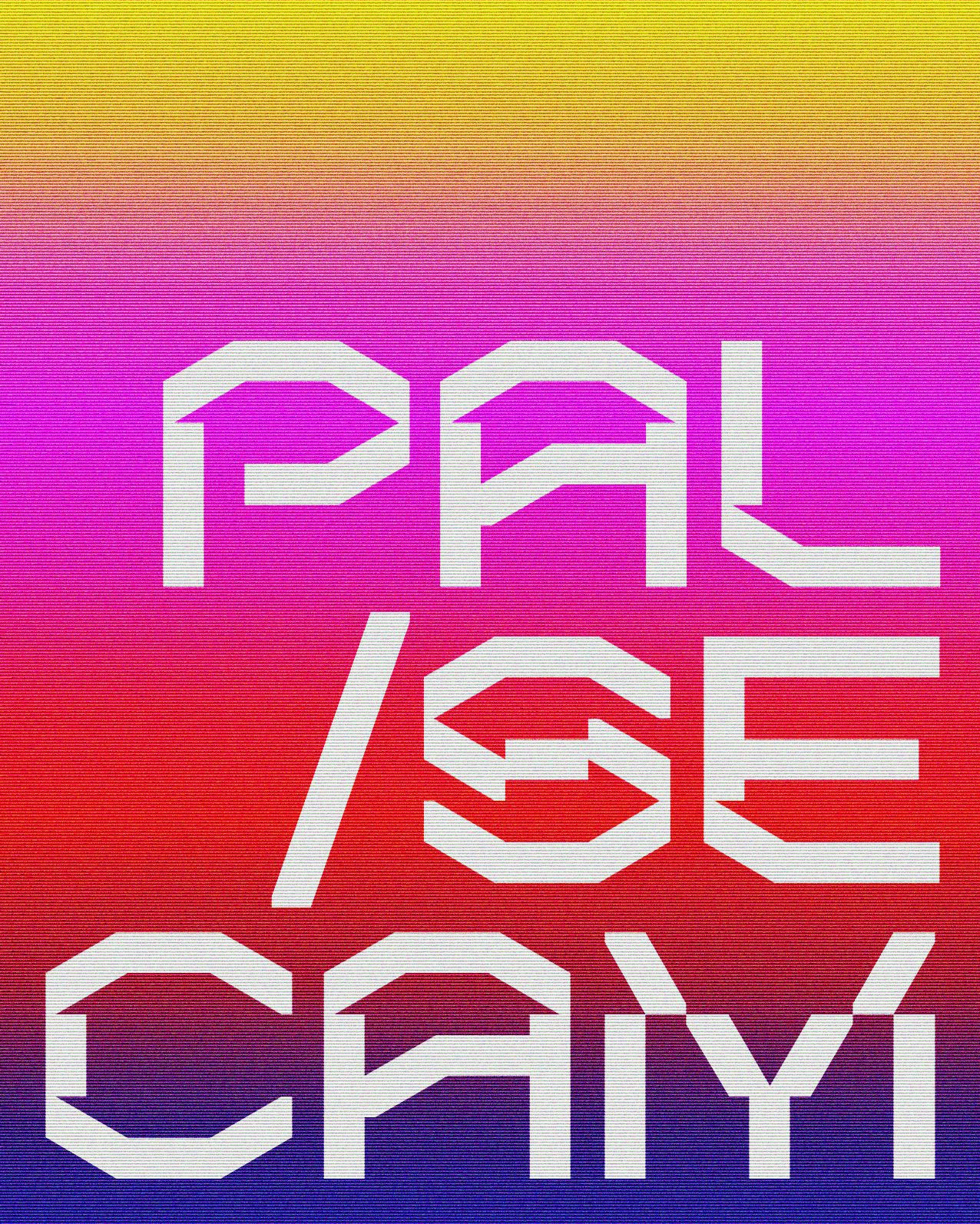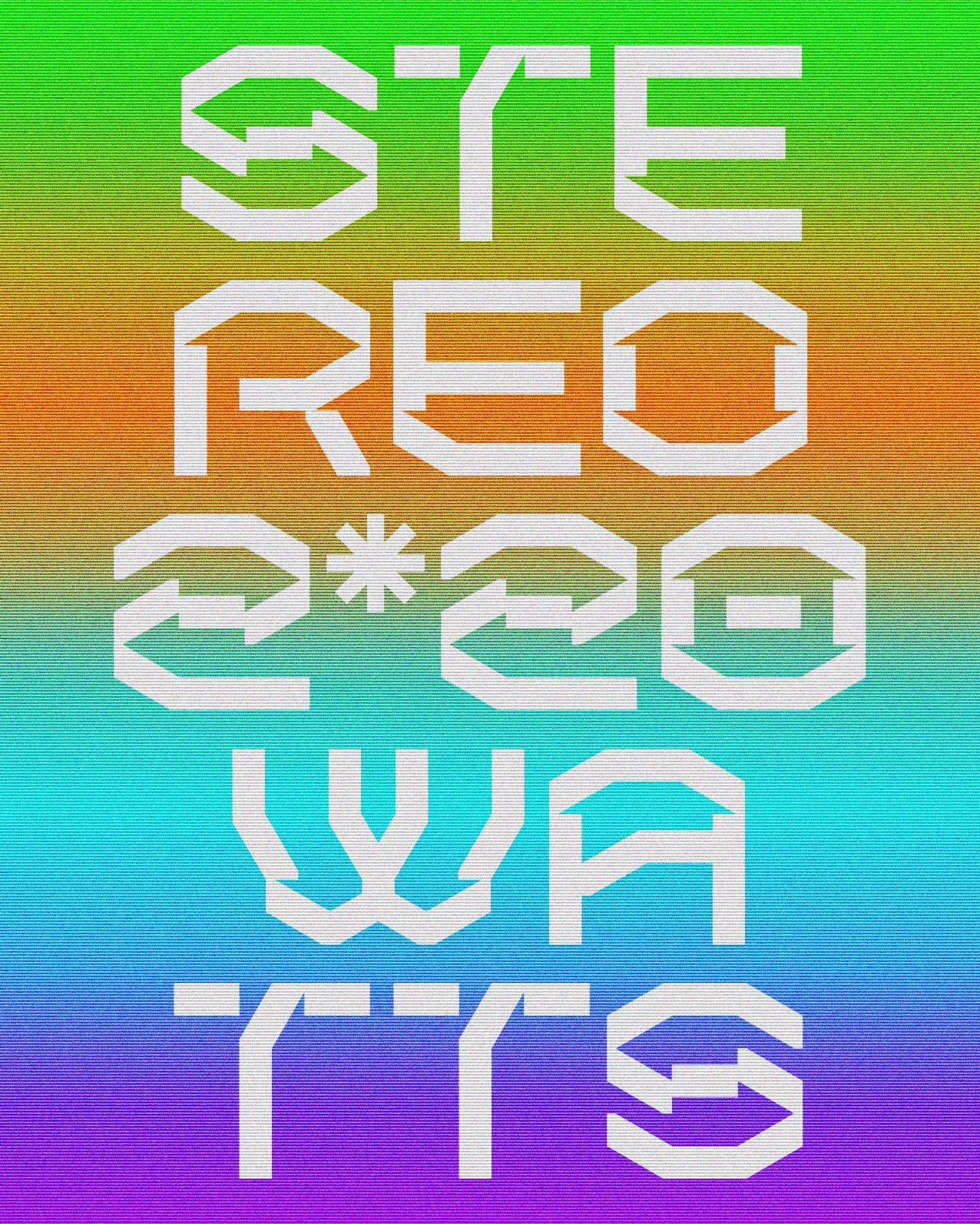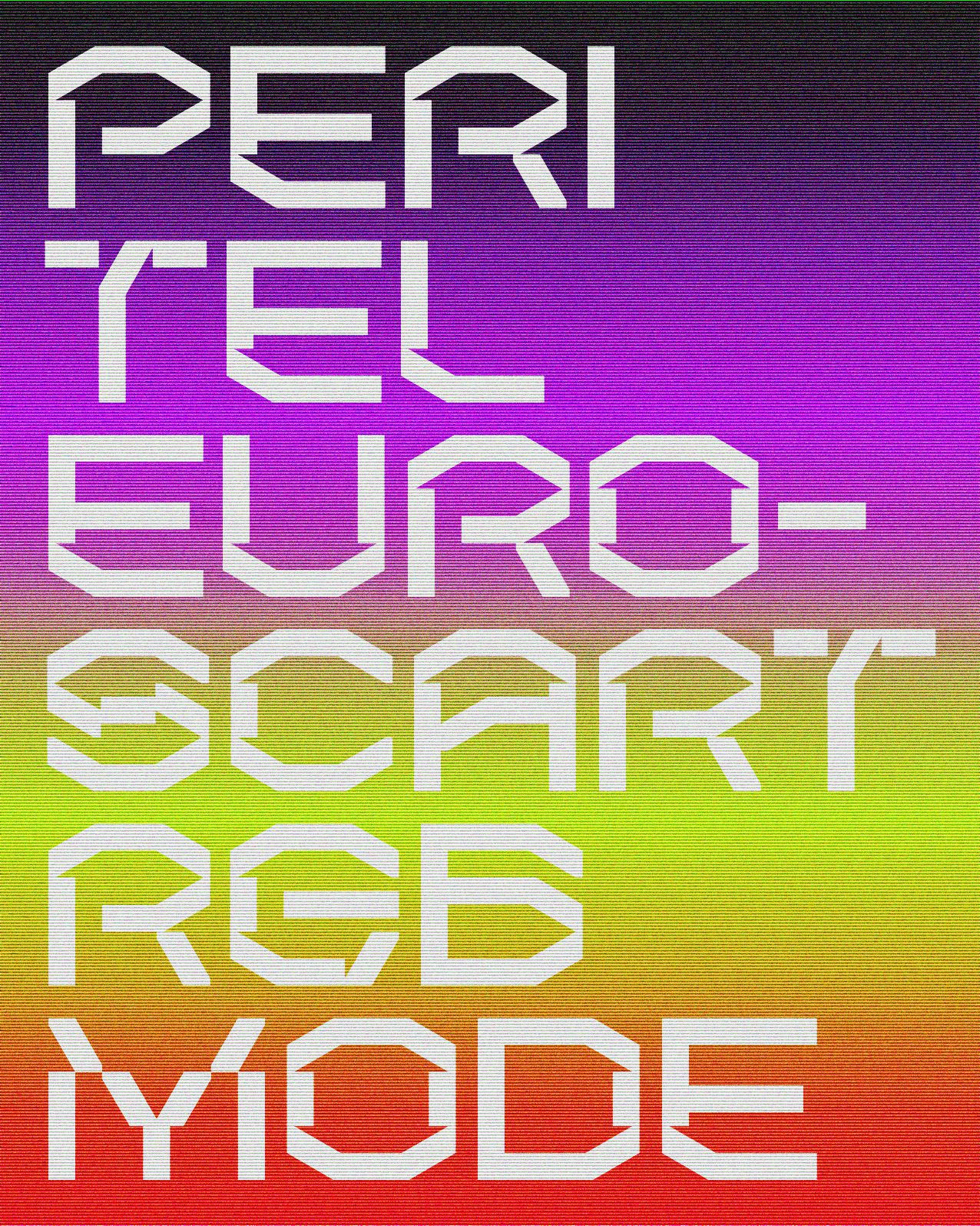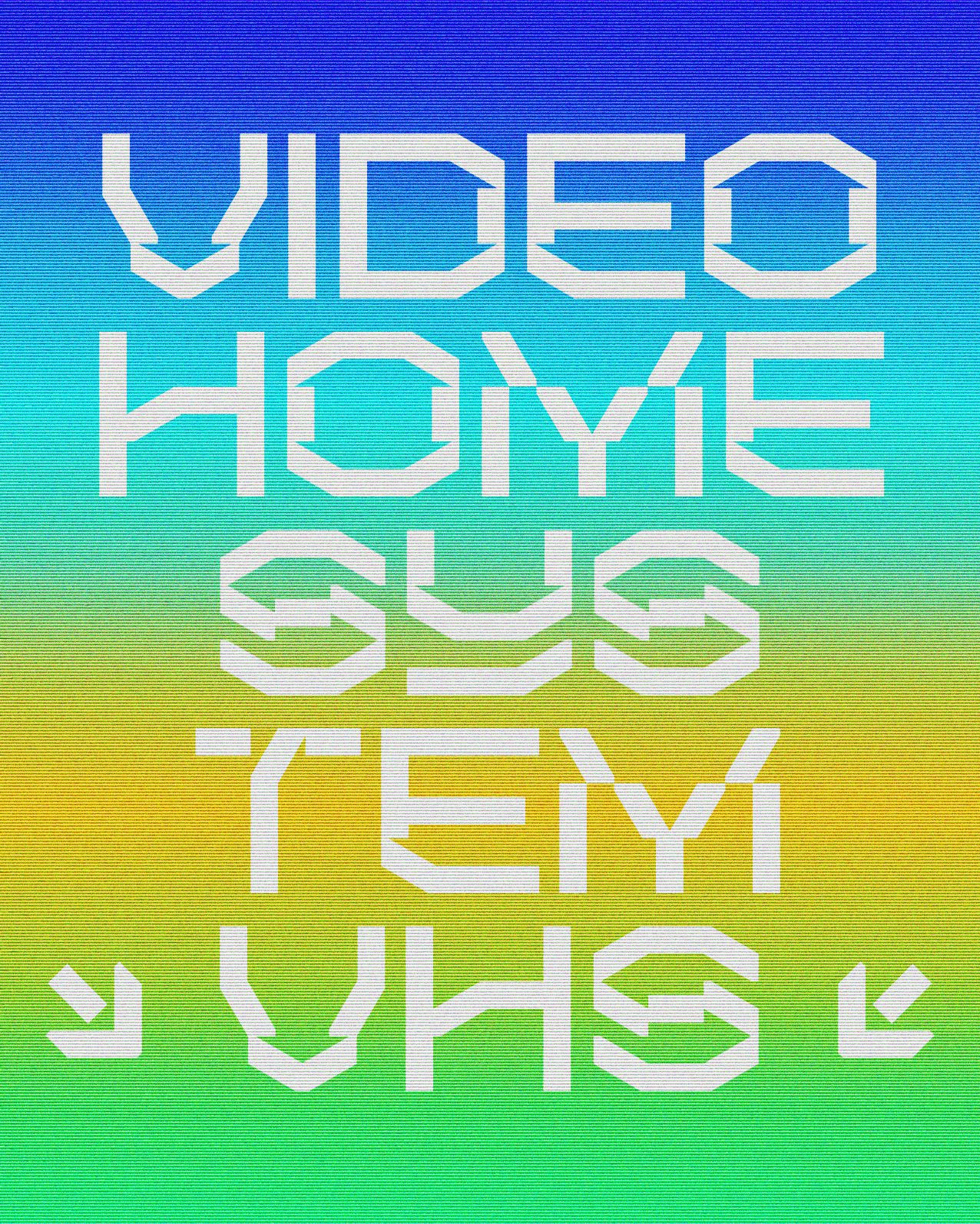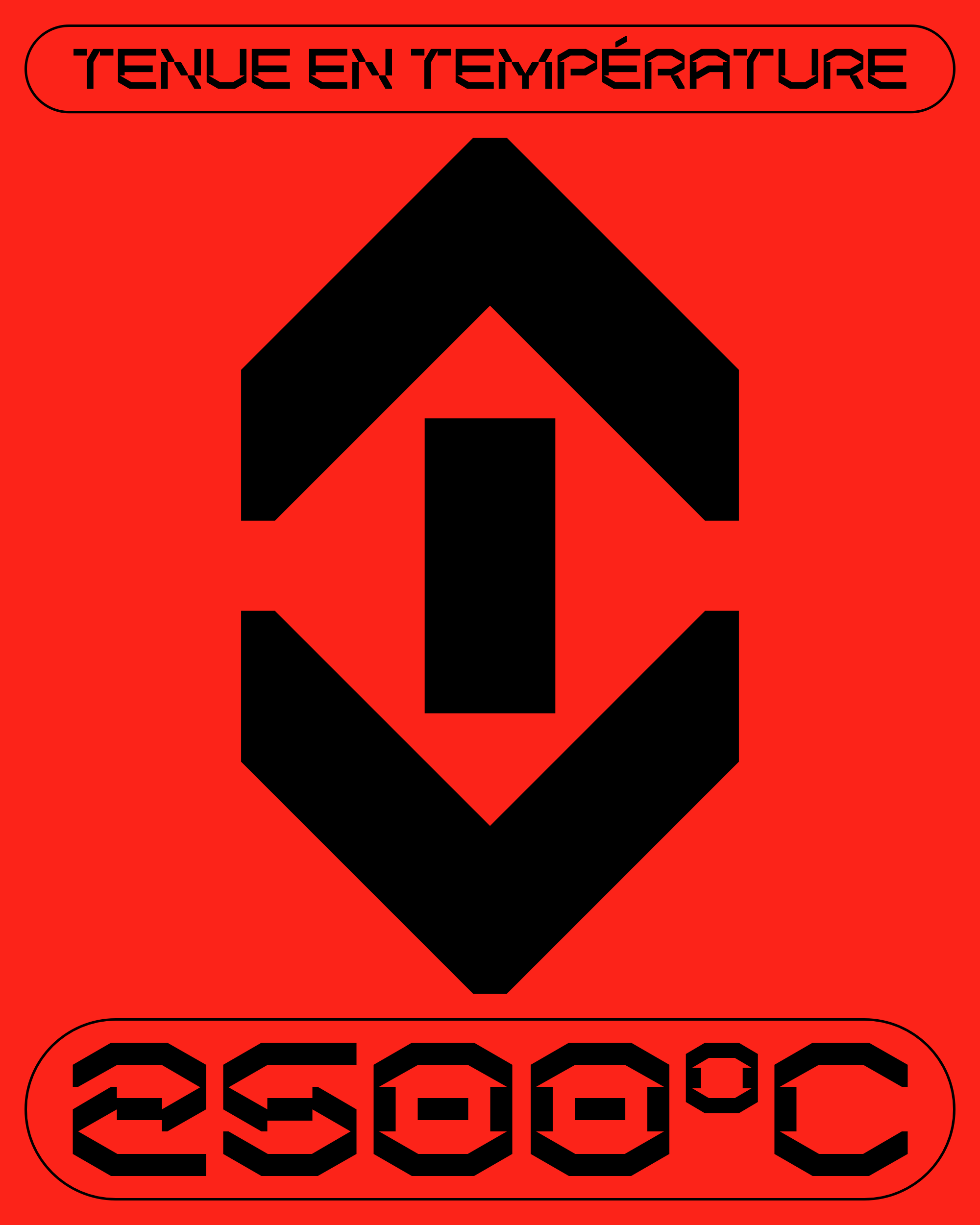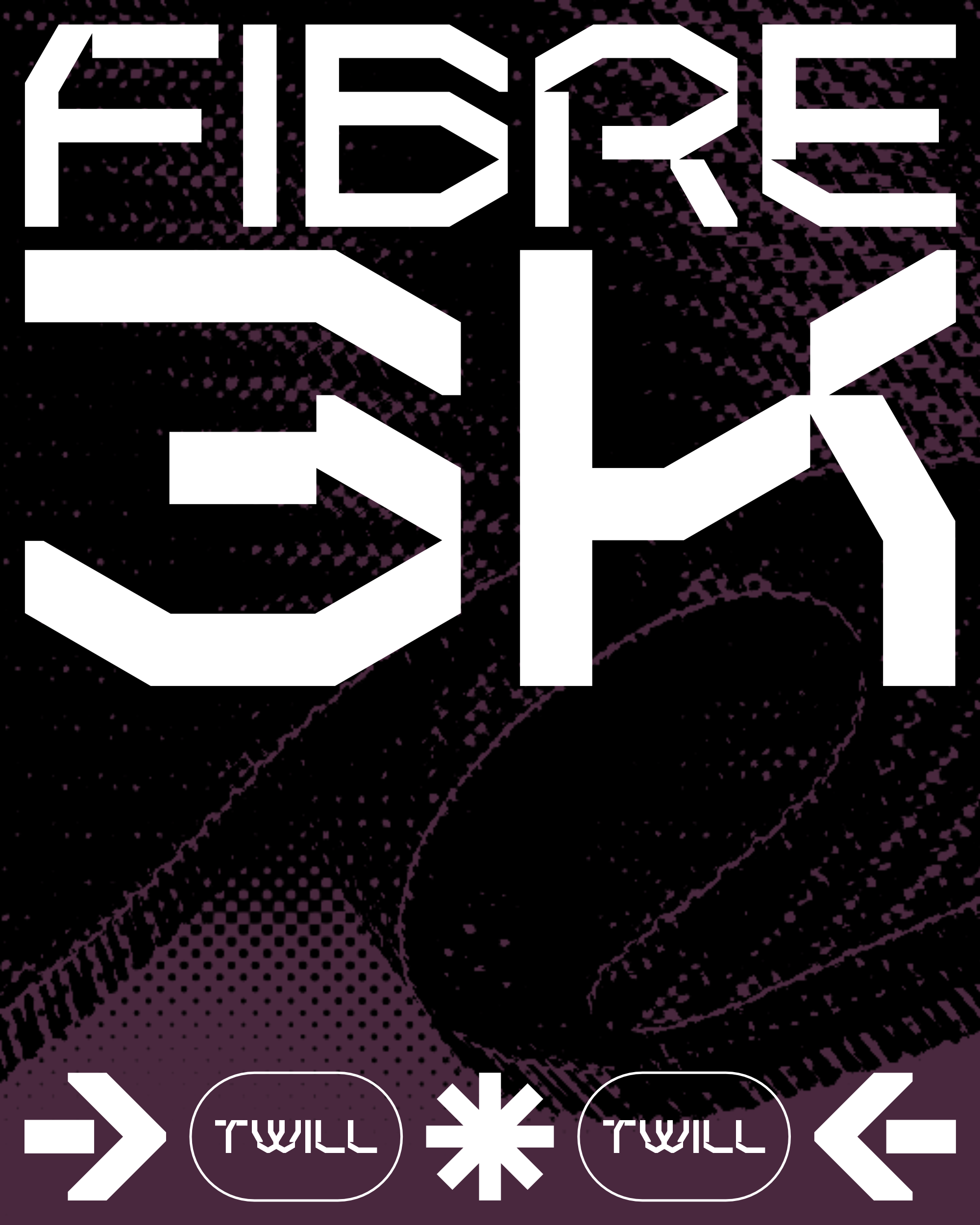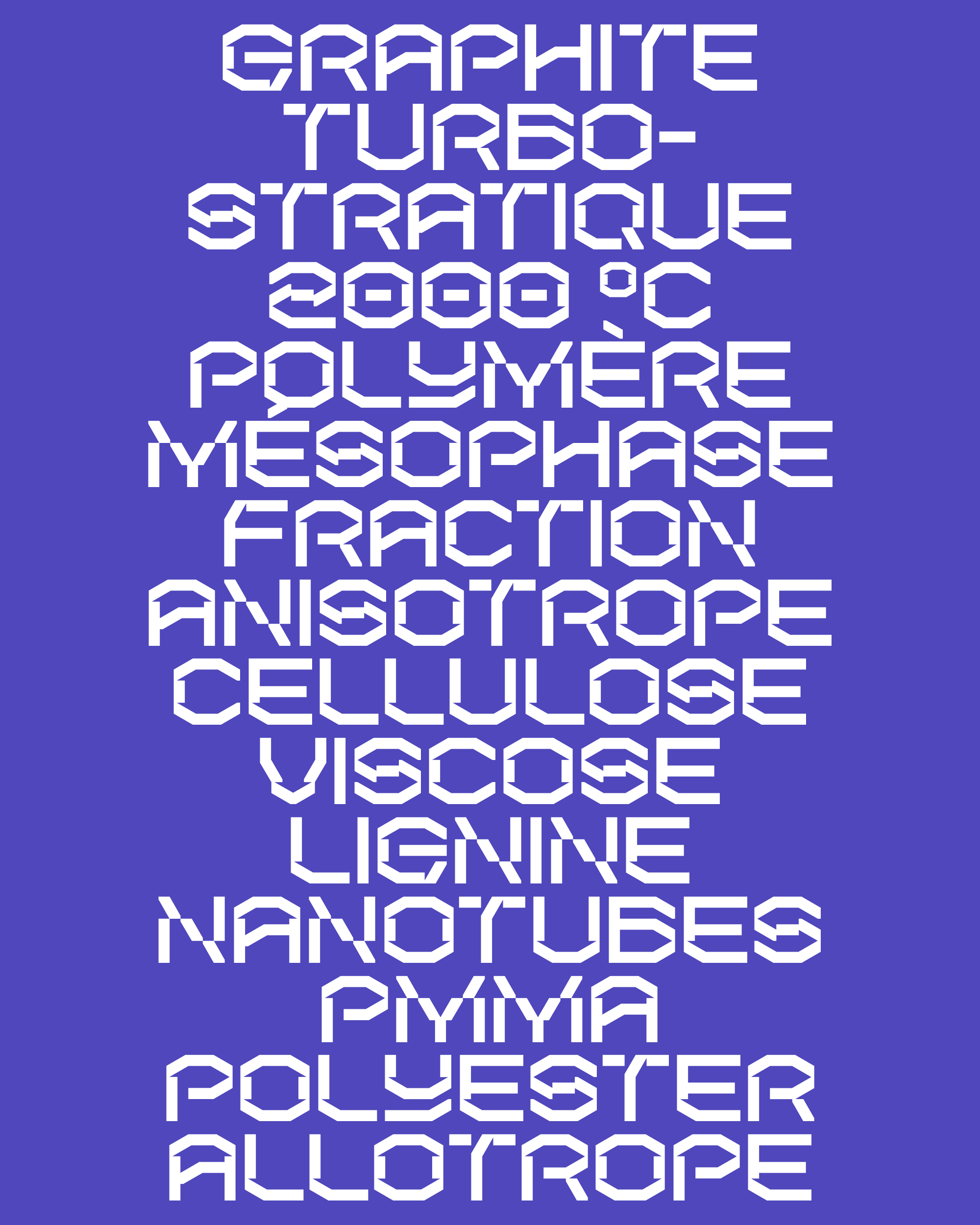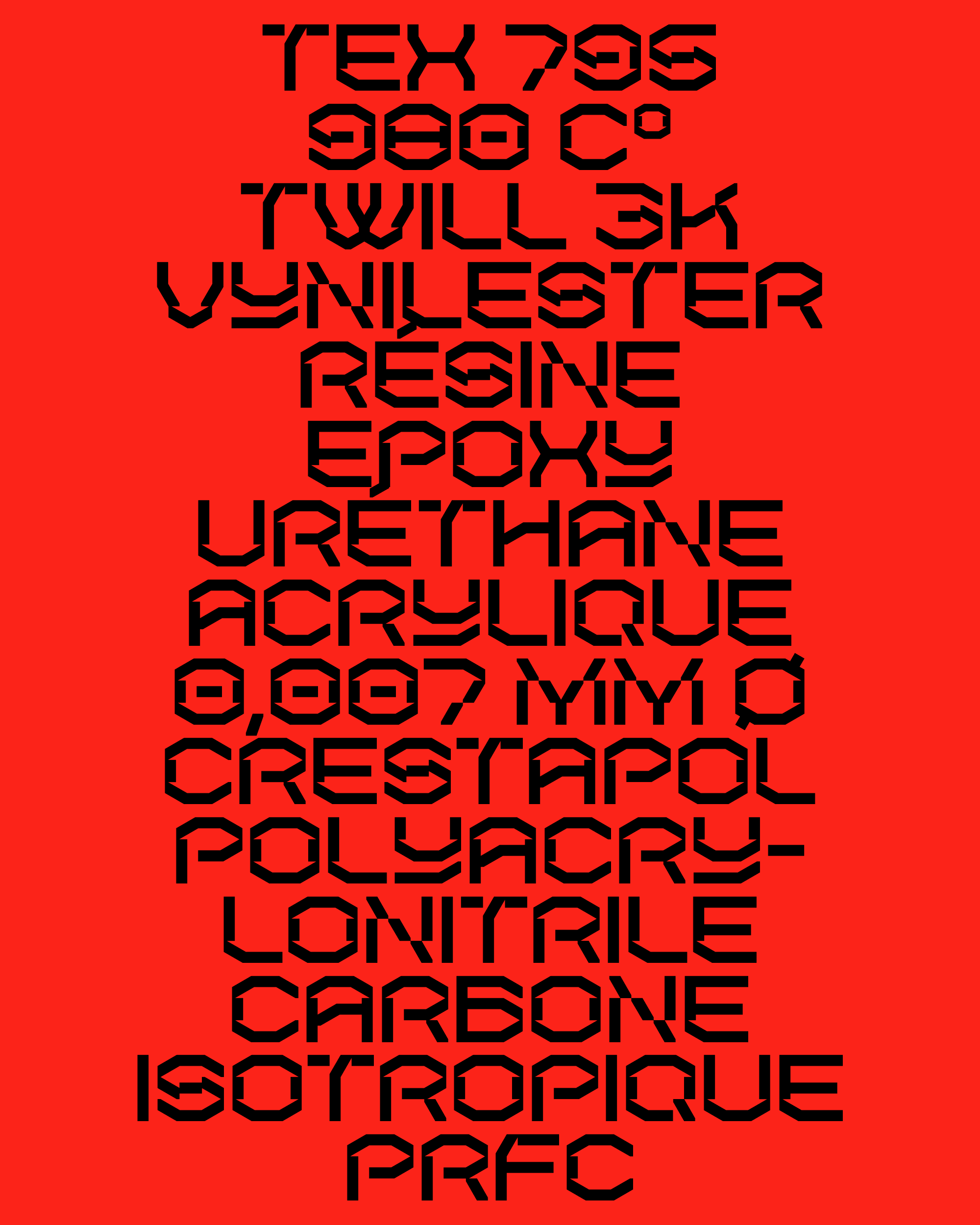
Fibre
Fibre was originally developed for Yield Guild Games, a worldwide Web3 gaming platform. Exaggeratedly technophile, Fibre is a monochrome exploration based on a precise rule: each character is built from a library of 18 elements, which, assembled on the basis of a 3×3 grid, result in a brutal, dystopian proposition. A typeface is an invaluable aid to conquering the world.